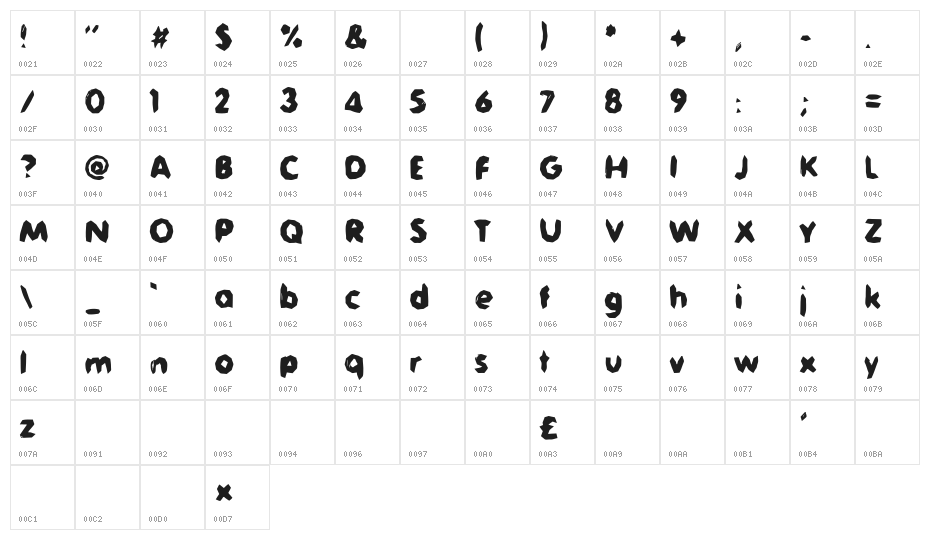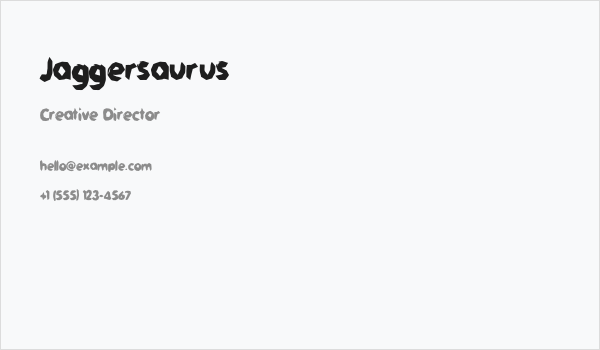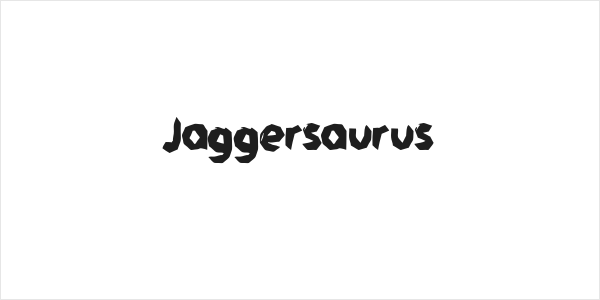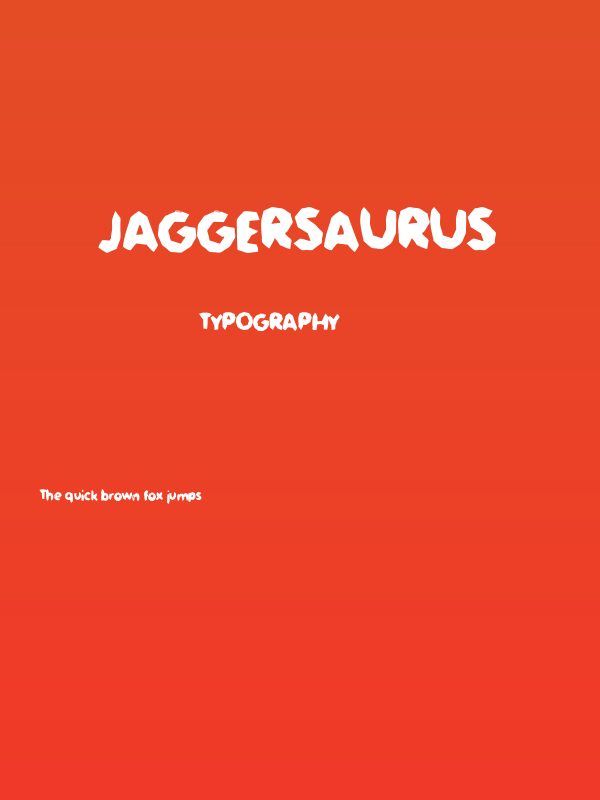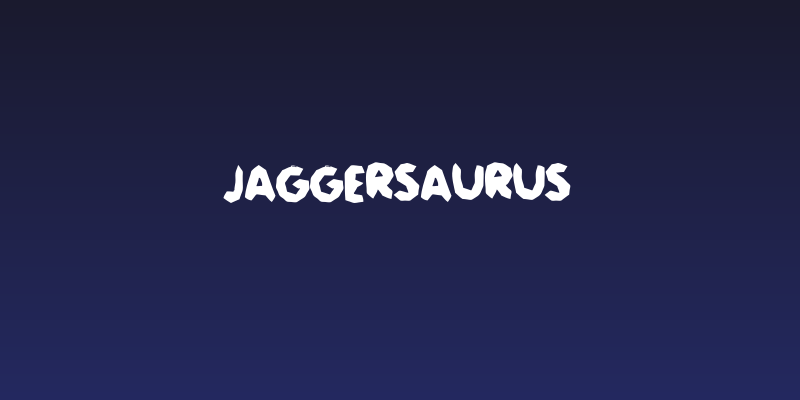
Jaggersaurus Font
Jaggersaurus Description
This font features a bold and rugged design, characterized by its jagged edges and irregular shapes. The letters appear as if they have been carved from stone, giving them a prehistoric and raw aesthetic. The uppercase and lowercase letters maintain a consistent style, with each character exhibiting unique angles and cuts that contribute to the overall dynamic appearance. Numbers and special characters follow the same design principles, ensuring a cohesive look across all elements. The font's distinctive style makes it ideal for projects that require a strong, impactful visual presence.
| Proposed Projects | Ideal for branding, posters, video game titles, and any project needing a bold, rugged aesthetic. |